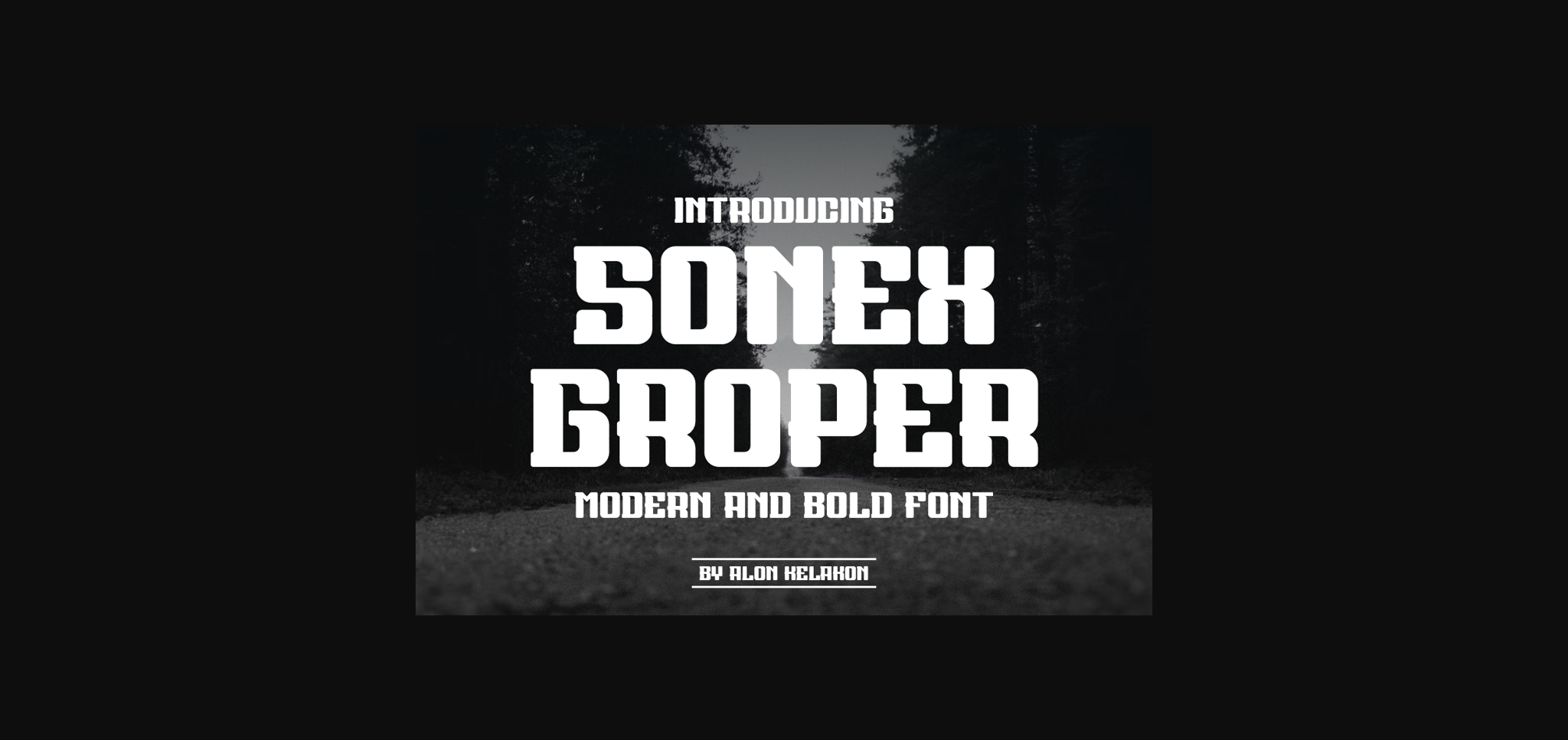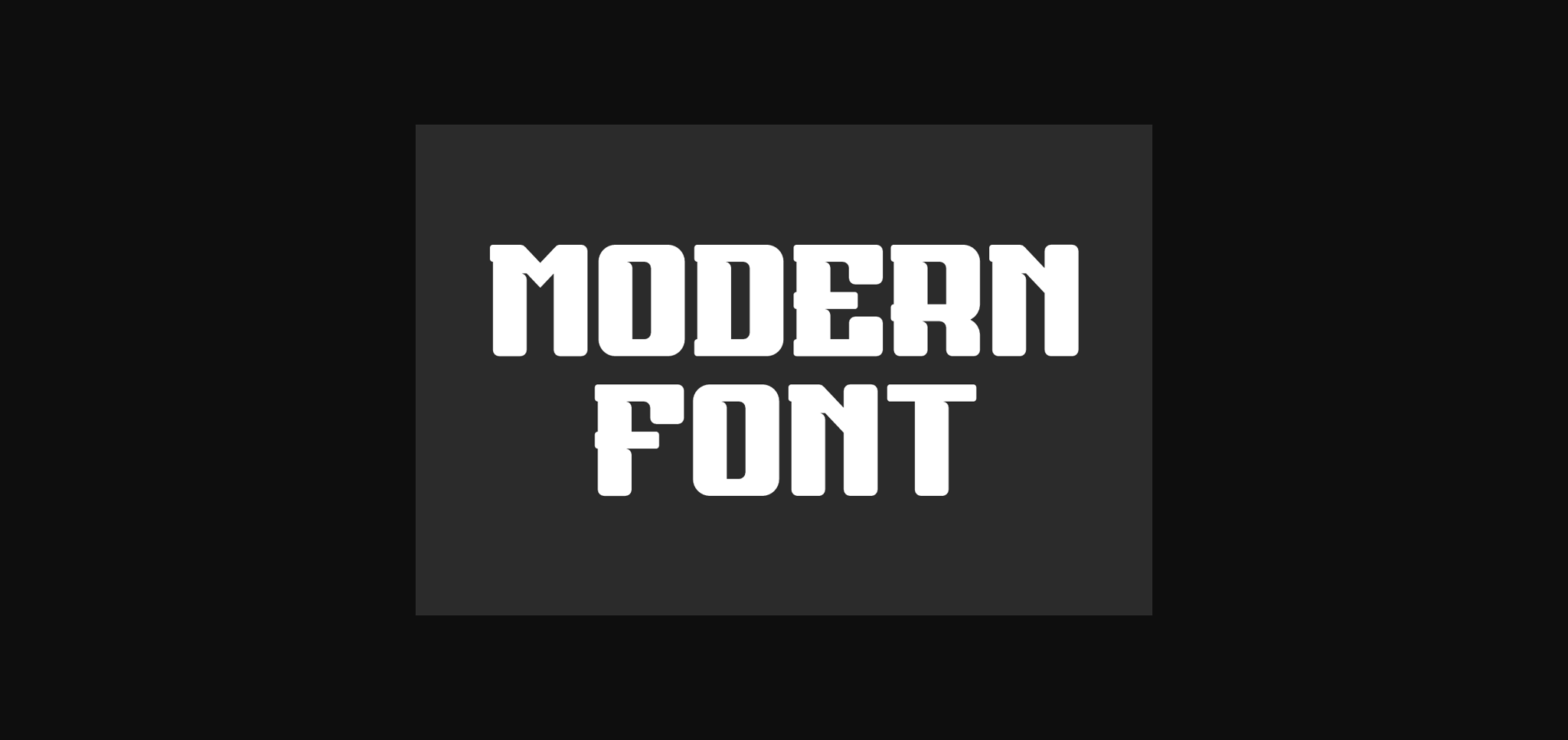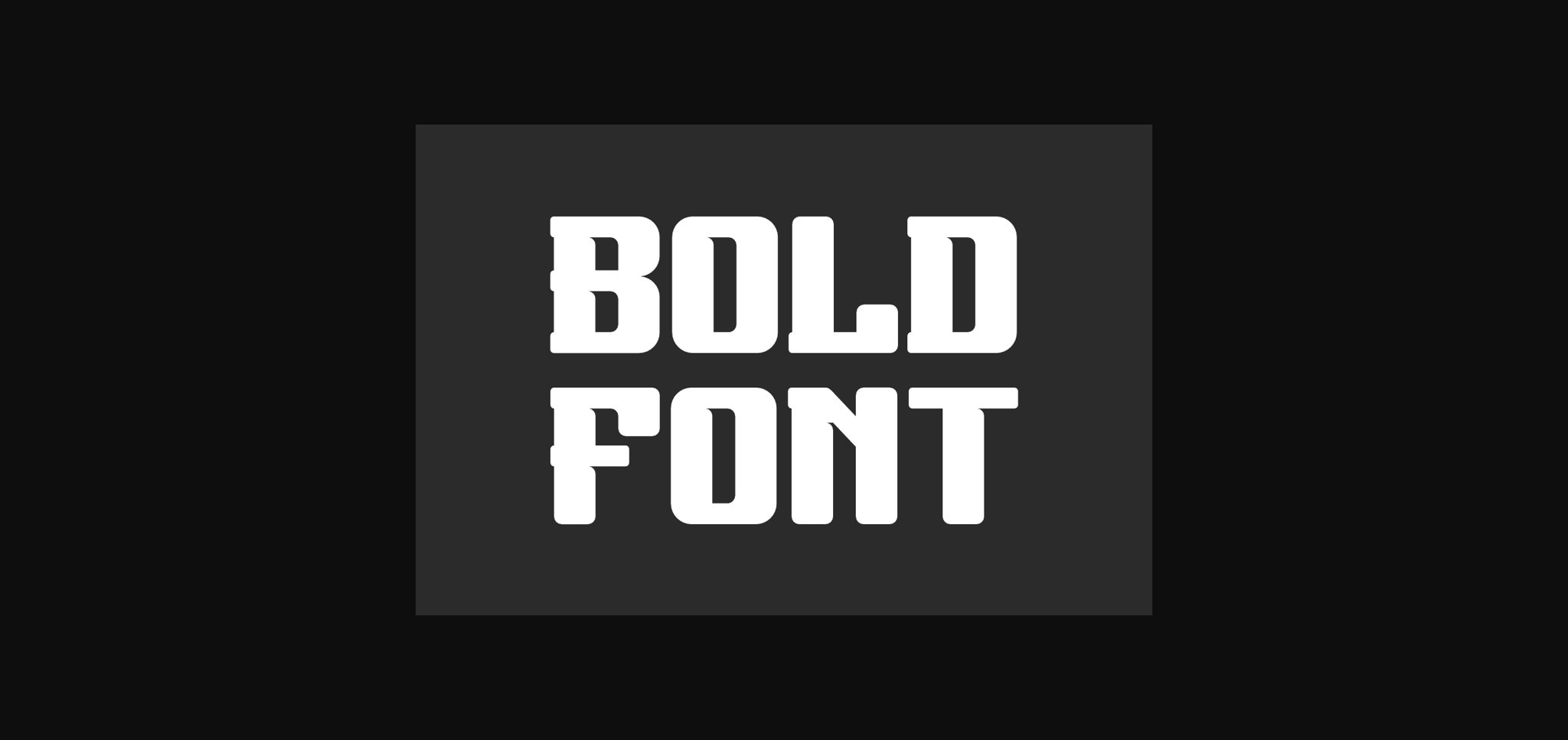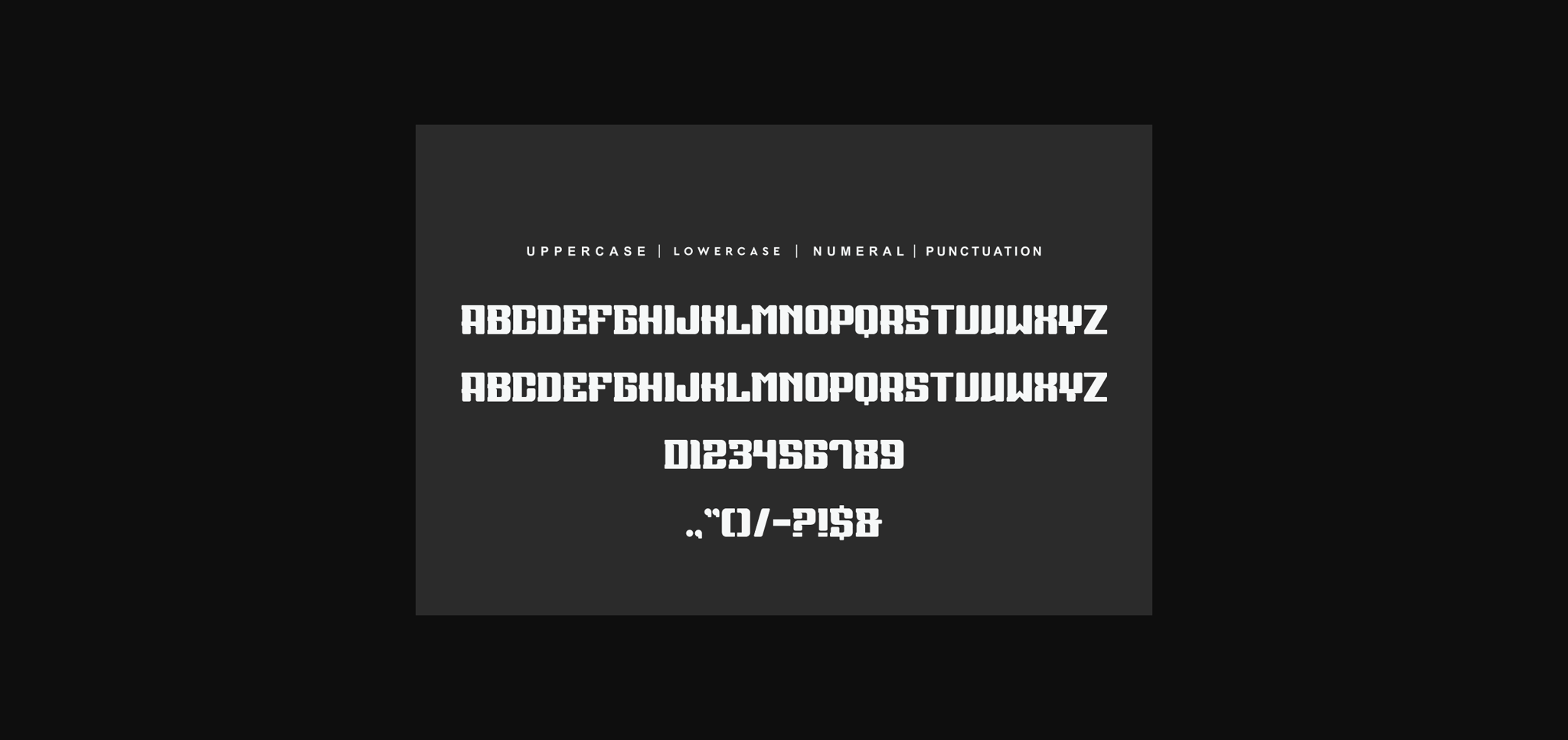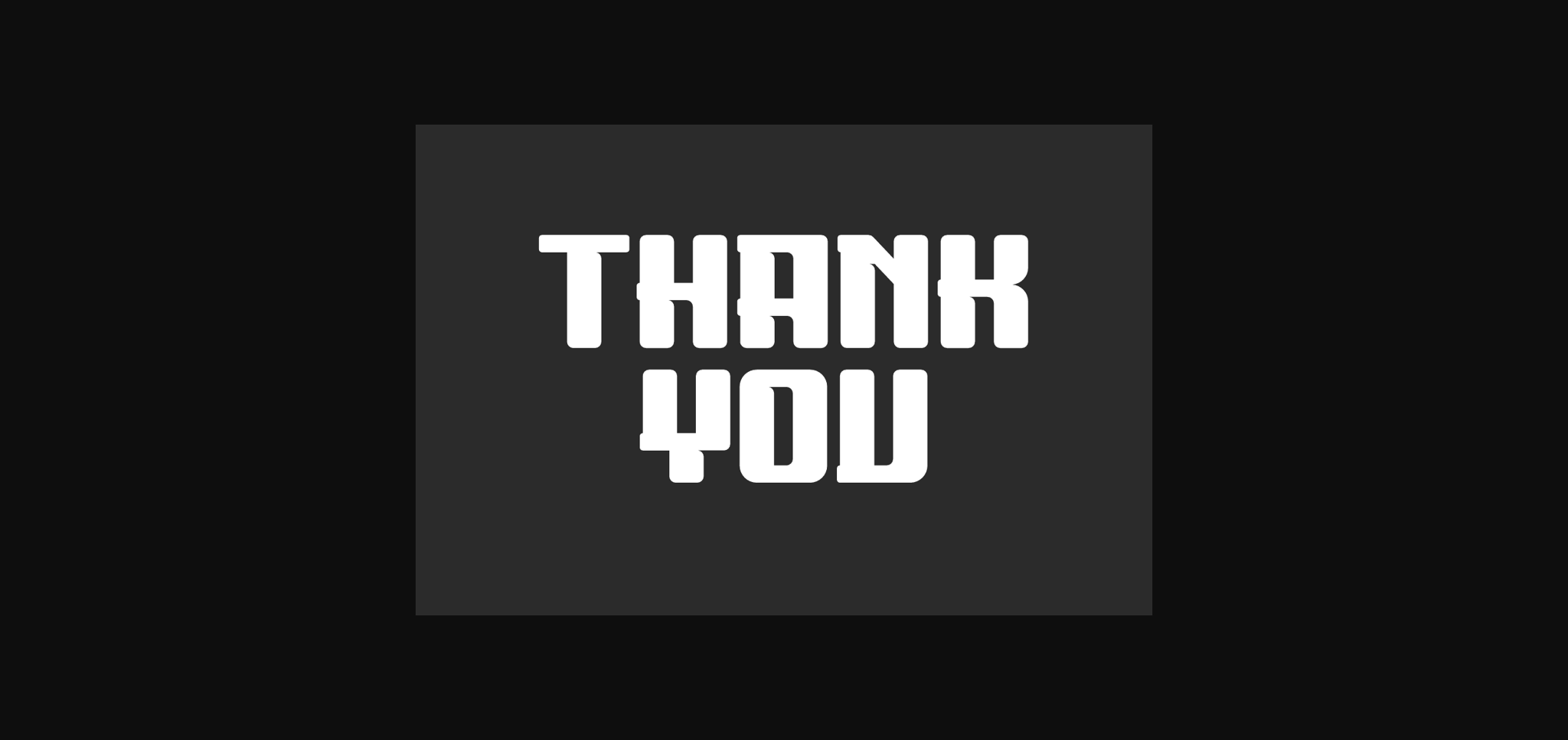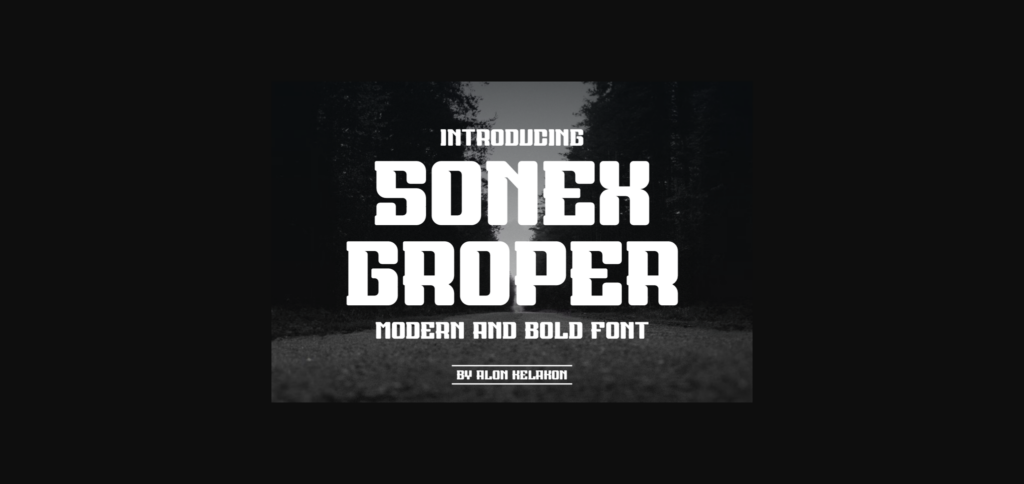
Sonex Groper is a bold, all caps display font featuring the perfect amount of trendiness. Whether you’re using it for crafting, digital designing, presentations or greeting cards making, it’s perfect!